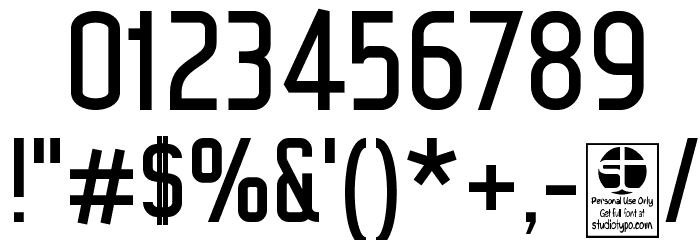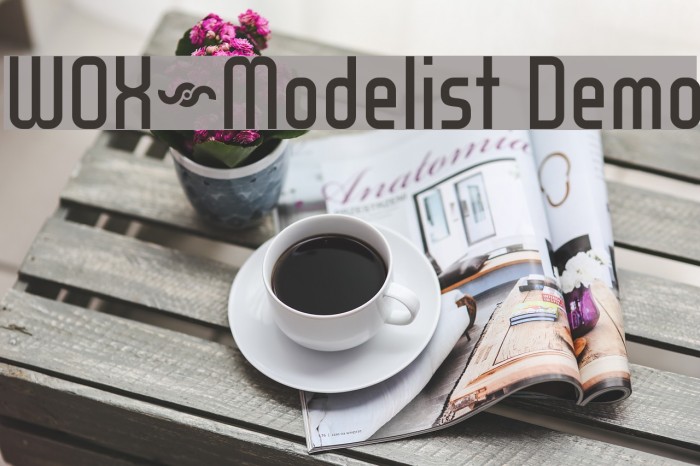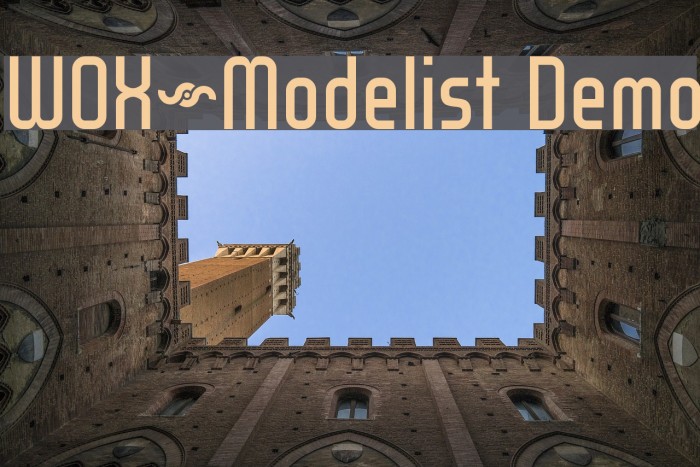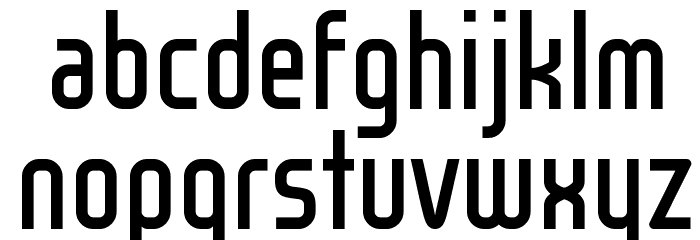
WOX~Modelist Demo Font
WOX~Modelist Demo Description
This font features a modern and clean design with a geometric structure. The characters are uniformly shaped with rounded edges, giving it a sleek and contemporary appearance. The uppercase letters maintain a consistent height, while the lowercase letters are slightly shorter, providing a balanced look. The numerals are clear and easy to read, matching the overall style of the alphabet. Special characters are well-integrated, maintaining the font's cohesive aesthetic. The font's simplicity and clarity make it versatile for various design applications.
| Use Case | Headlines, Body text, Logos |
| Proposed Projects | Ideal for branding, digital interfaces, signage, and editorial design where clarity and modernity are desired. |